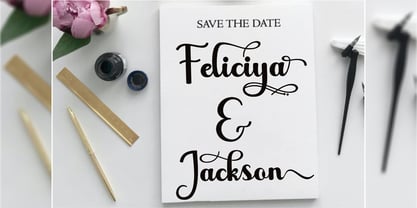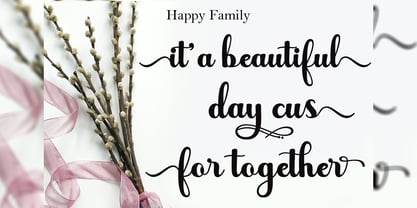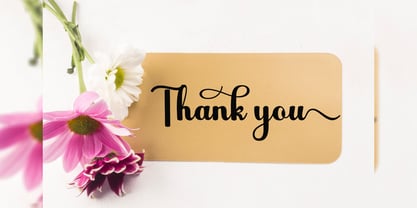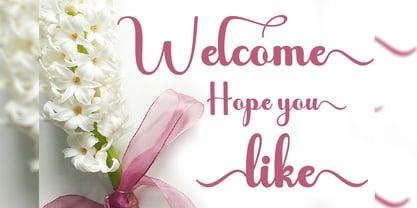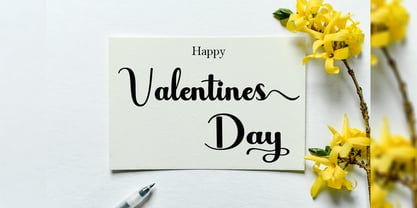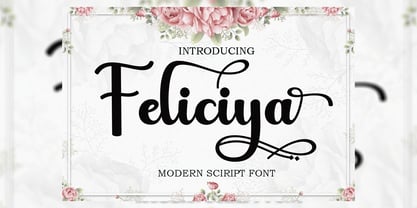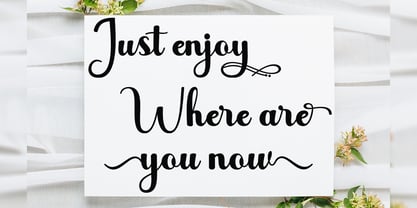
Feliciya
by Naiza Studio
The Feliciya Font Family was designed by Ata Illah and published by Naiza Studio. Feliciya contains 1 styles.
Feliciya script is a modern calligraphy design including Regular. This font is casual and beautiful with swashes. Can be used for various purposes such as logos, product packaging, wedding invitations, branding, headlines, signage, labels, signatures, book covers, posters, quotes, and much more.
Designers: Ata Illah
Publisher: Naiza Studio
Foundry: Naiza Studio
Design Owner: Naiza Studio